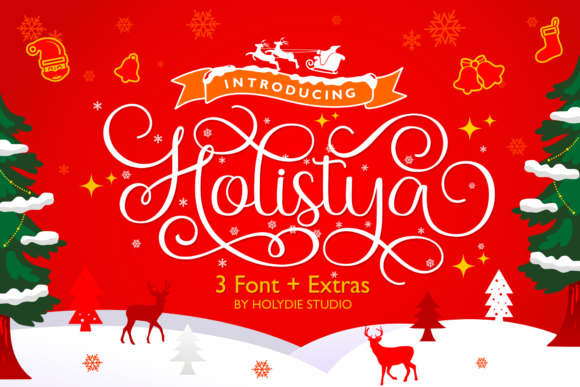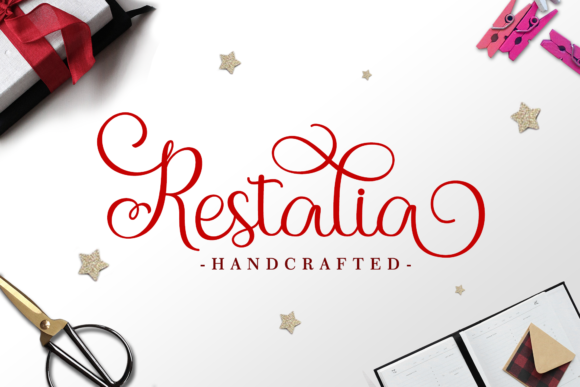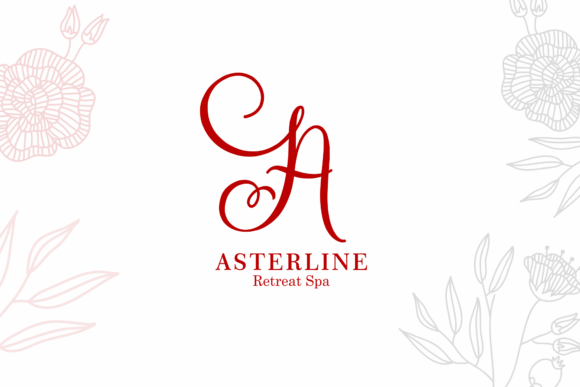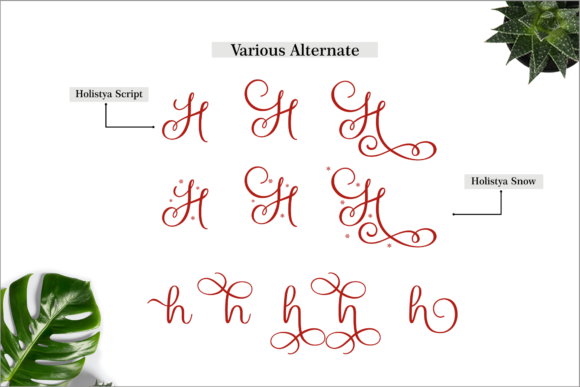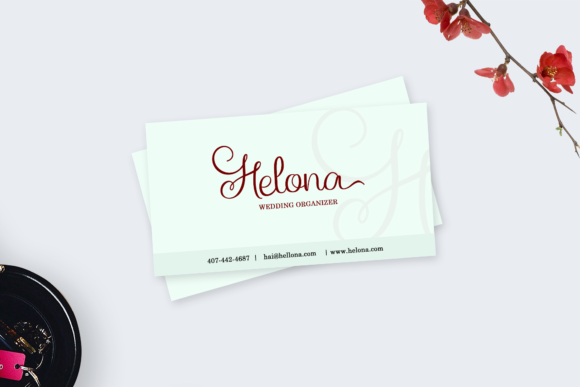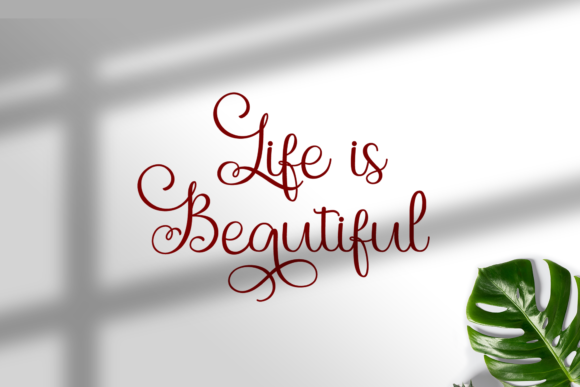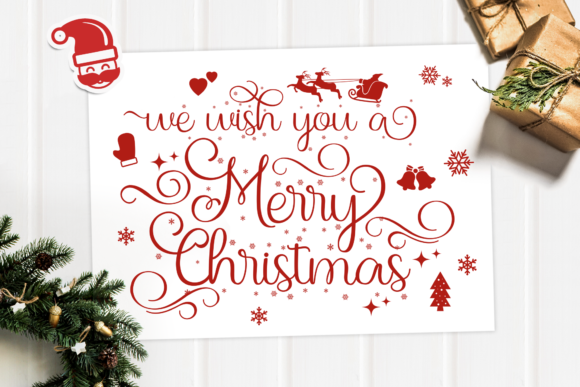
The Perfect Font for Holiday Cheer
You know that feeling when you’re brainstorming ideas for your next creative project, and suddenly, a spark of inspiration strikes? Maybe it’s a holiday greeting card design, and you envision a beautiful, festive font that perfectly captures the essence of the season. That’s exactly what happens when you discover the Holistya Font – a stunning typeface that’s sure to make your holiday cards stand out.
Designed specifically for the holiday season, Holistya Font is the perfect addition to any designer’s toolkit. With its elegant, cursive script and festive flair, it’s sure to add a touch of magic to your holiday designs. Whether you’re creating greeting cards, social media posts, or even gift tags, Holistya Font is the perfect choice to make your projects shine.
Holistya Font Key Features
- Font Family: Holistya comes in 12 font styles, including regular, bold, italic, and bold italic.
- Character Set: Holistya includes a comprehensive character set, covering Latin, Cyrillic, and Greek alphabets, as well as a range of punctuation and symbol glyphs.
- Unique Characteristics: The font features a unique, hand-drawn aesthetic, with subtle variations in line width and texture that give it a distinctive, human touch.
Honest Review of Holistya Font
Overall, I was excited to try out Holistya Font, and it did deliver on some aspects. Here are the things that I think work well: ✨
- Unique character set: Holistya Font offers a diverse and eclectic character set, which can add a lot of personality to your designs.
- Legibility: The font is generally easy to read, making it suitable for body text and larger blocks of content.
- Customization: The font offers a range of OpenType features, allowing you to customize the look and feel of your text.
However, there are some limitations to keep in mind: ⚠️
- Compatibility issues: I experienced some compatibility issues with certain software and operating systems, which can be frustrating.
- Lack of consistency: While the font is unique, it can be inconsistent in its application, making it harder to use in certain contexts.
- Overreliance on OpenType features: While the OpenType features are a plus, they can also make the font feel overly complicated and difficult to use.
Overall, I would say that Holistya Font is a solid choice for designers looking for a unique and customizable font. While it has its limitations, it can add a lot of personality to your designs. However, be aware of the potential compatibility issues and consistency problems, and make sure you’re comfortable with the font’s complexity.
Getting the Most Out of Holistya Font
To get the most out of Holistya Font, experiment with different font sizes, colors, and styles. Combine it with other fonts to create unique and visually appealing designs. Use it for headings, titles, or body text to add a touch of elegance and sophistication to your projects.
Holistya Font is ideal for a variety of projects, including: